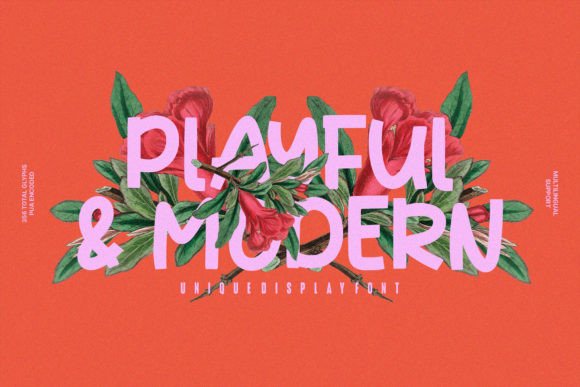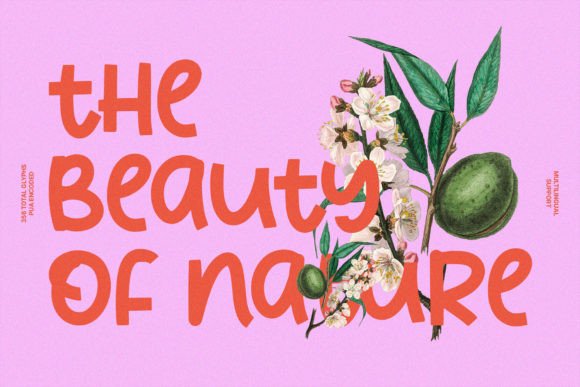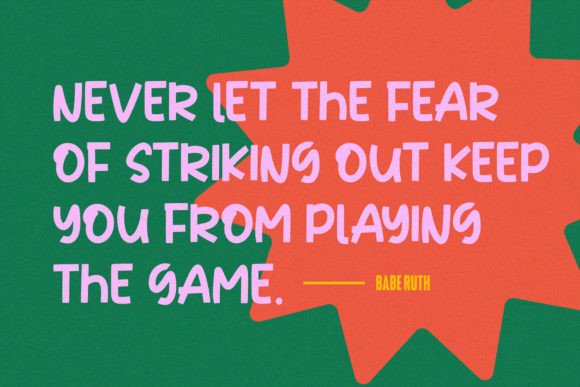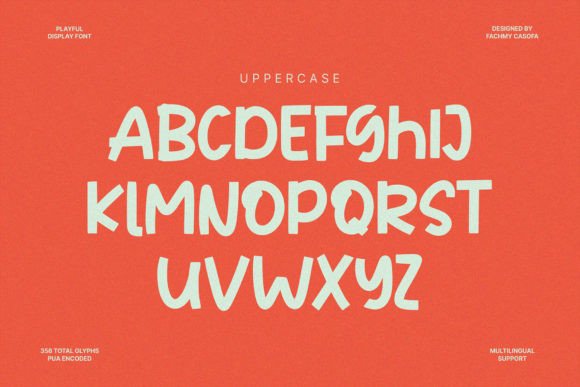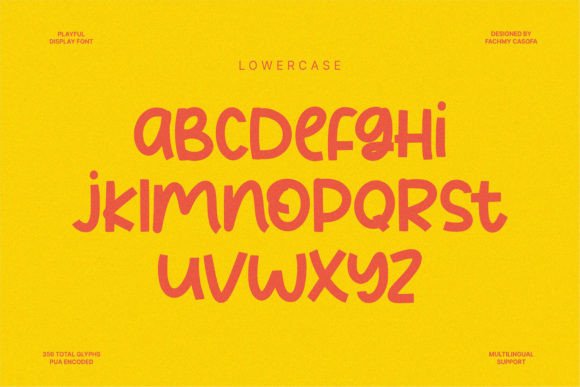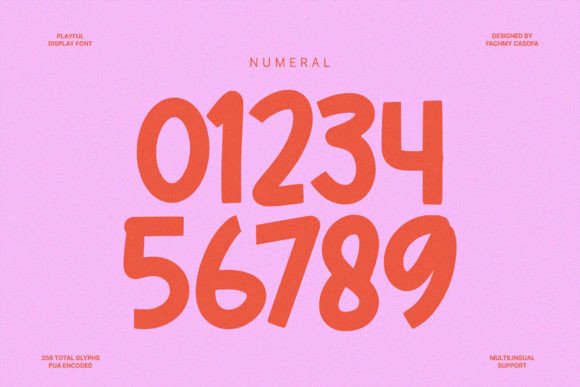
Introducing Buenisha Marines Font: The Ultimate Bold and Playful Display Font
Are you tired of using the same old fonts for your creative projects? Look no further! Buenisha Marines Font is here to revolutionize your designs with its bold and playful display style. This masterfully designed font is sure to become a true favorite among designers and crafters, and for good reason. With its unique charm and versatility, Buenisha Marines Font has the potential to bring each of your creative ideas to the highest level.
What Makes Buenisha Marines Font So Special?
Buenisha Marines Font was purposely crafted to be used in large point sizes, making it perfect for headlines, billboards, magazines, websites, titles, posters, branding, and logos. However, its magic doesn’t stop there. This font still looks amazing even in small point sizes, making it a versatile addition to your font library.
One of the standout features of Buenisha Marines Font is its bold and playful style. It’s designed to add a touch of personality to your designs, making it perfect for projects that require a bit of whimsy and fun. Whether you’re working on a children’s book, a kids’ website, or a playful brand campaign, this font is sure to deliver.
Buenisha Marines Font is a must-have for designers and crafters who want to elevate their creations. With this beautiful font, you can make your project stand out from the rest and add a professional touch. Its unique style and versatility make it perfect for a wide range of applications, from print to digital.
Whether you’re a seasoned designer or a crafty DIY enthusiast, Buenisha Marines Font is an incredible asset to your font library. Its bold and playful style is sure to inspire your creativity and help you bring your ideas to life.
Why Choose Buenisha Marines Font?
So, why choose Buenisha Marines Font over other fonts on the market? Here are just a few reasons:
- Unique Style: Buenisha Marines Font has a one-of-a-kind style that’s sure to make your designs stand out.
- Versatility: This font is perfect for a wide range of applications, from print to digital.
- Easy to Read: Despite its bold style, Buenisha Marines Font is easy to read, even in small point sizes.
- High-Quality: This font is designed with high-quality craftsmanship, ensuring that it looks amazing in any design.
How to Use Buenisha Marines Font
Here are a few tips for using Buenisha Marines Font:
- Use it for Headlines: Buenisha Marines Font is perfect for headlines, titles, and other large text elements.
- Experiment with Colors: This font looks amazing in a variety of colors, so don’t be afraid to experiment and find the perfect hue for your design.
- Pair it with Other Fonts: Buenisha Marines Font pairs well with a variety of other fonts, so feel free to get creative and find the perfect combination for your design.
| Font Name | Buenisha Marines Font |
| Author | Enxyclo |
In conclusion, Buenisha Marines Font is a bold and playful display font that’s sure to become a true favorite among designers and crafters. Its unique style, versatility, and high-quality craftsmanship make it perfect for a wide range of applications, from print to digital.